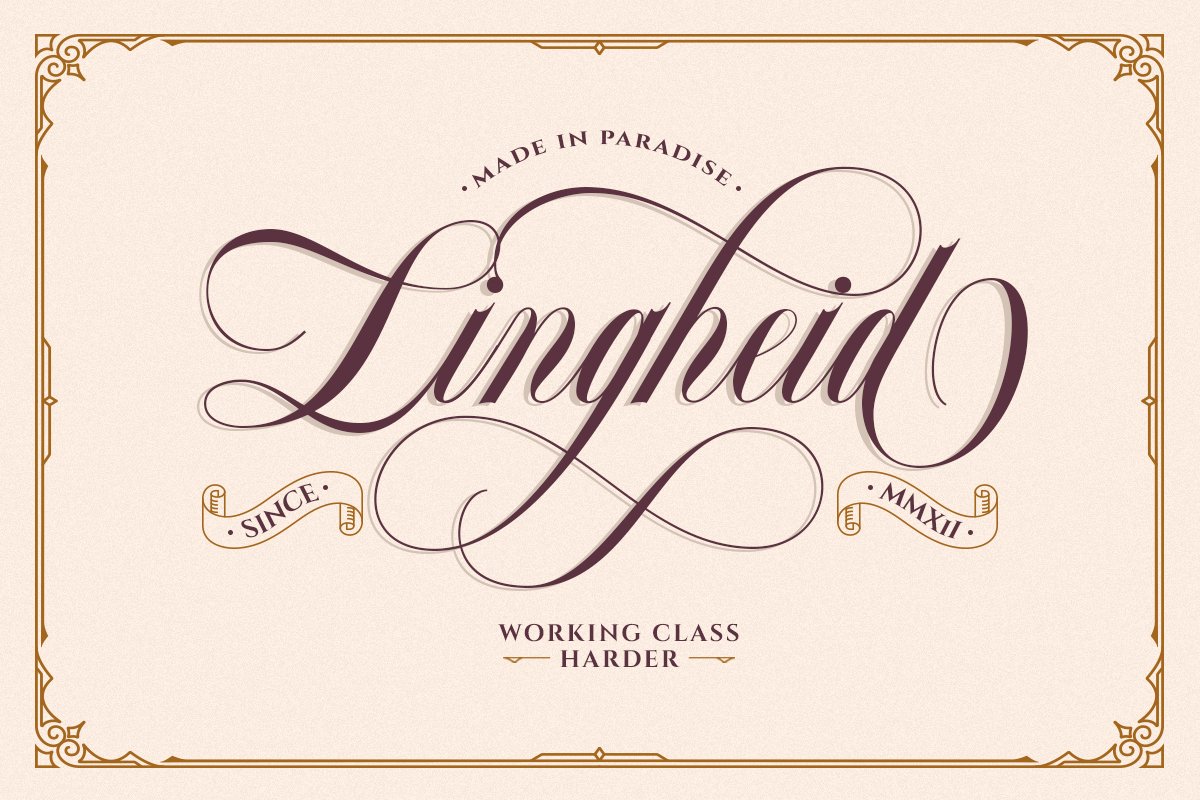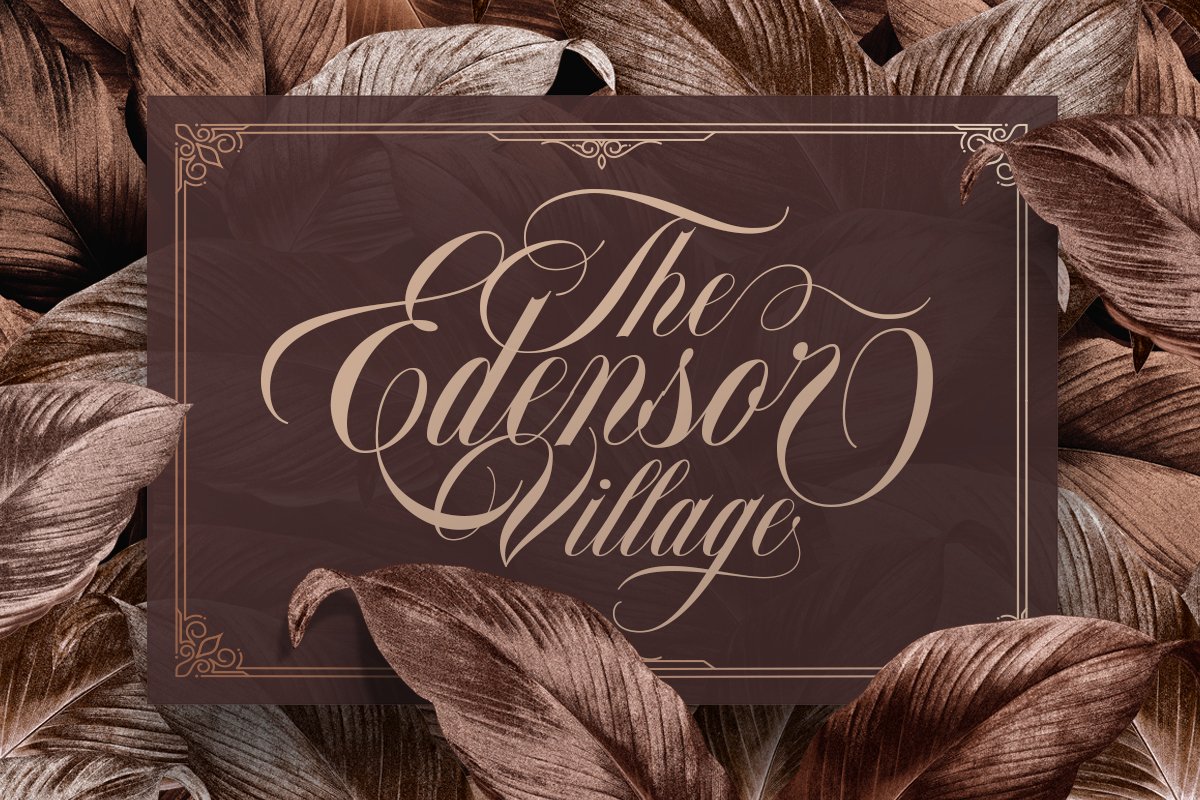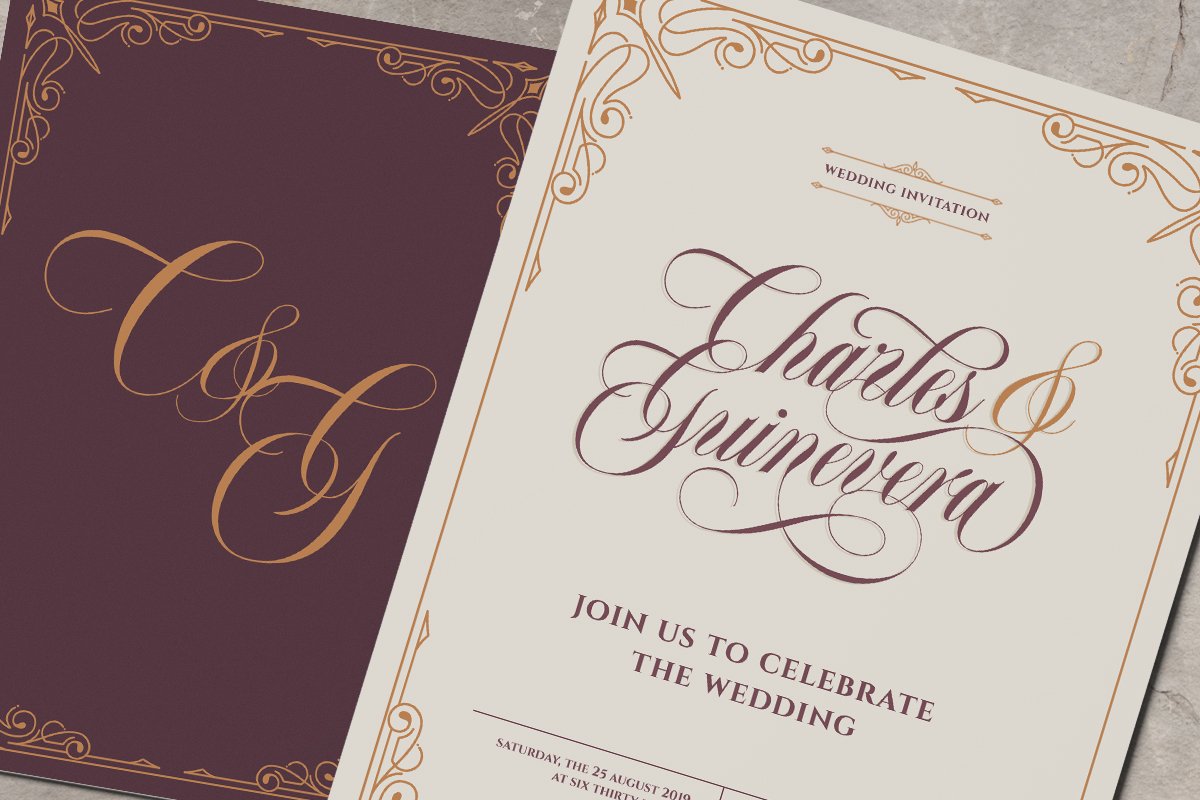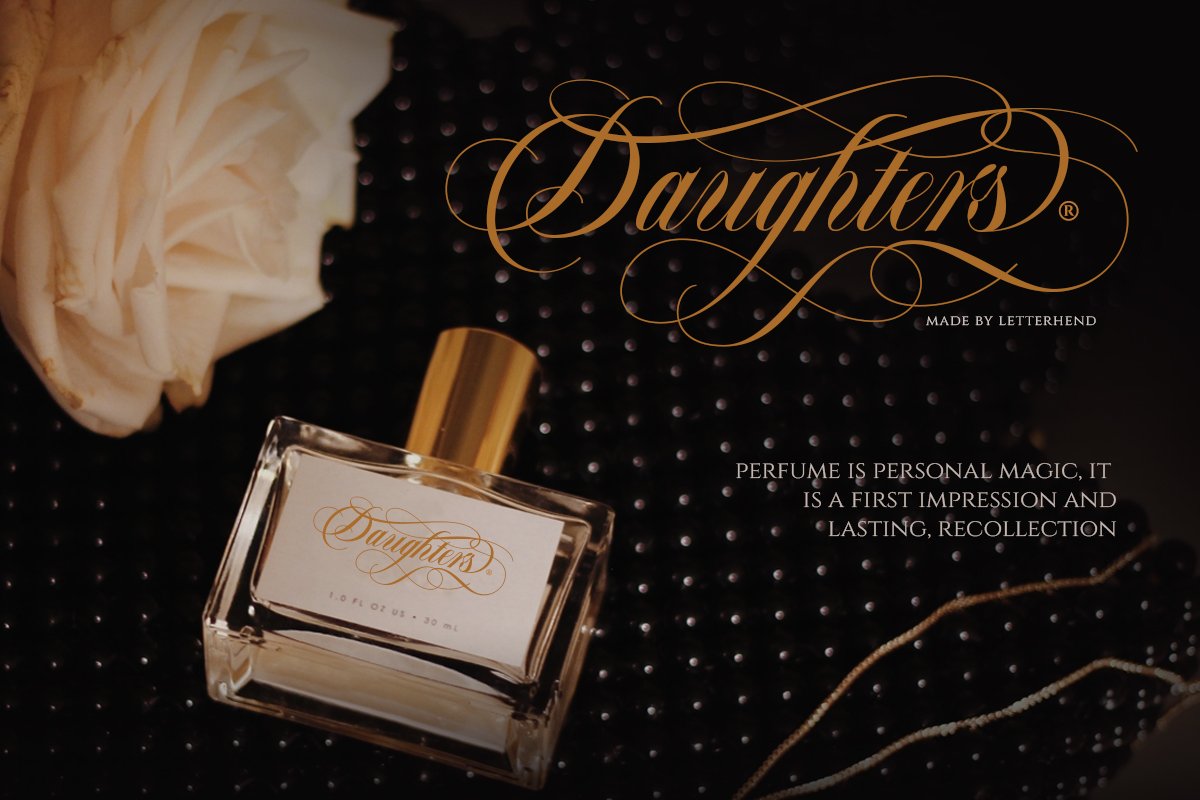
About the Bordemile Luxury Script Font
Introducing, Bordemile, A luxury script with unique swashes! They works perfect for you who needs a typeface for headline, logotype, apparel, invitation, branding, packaging, advertising etc, Features :uppercase & lowercasenumbers and punctuationmultilingualligaturesalternatesswashesPUA encodedclassic frame in vector formatWe hope you enjoy the font, please feel free to comment if you have any thoughts or feedback